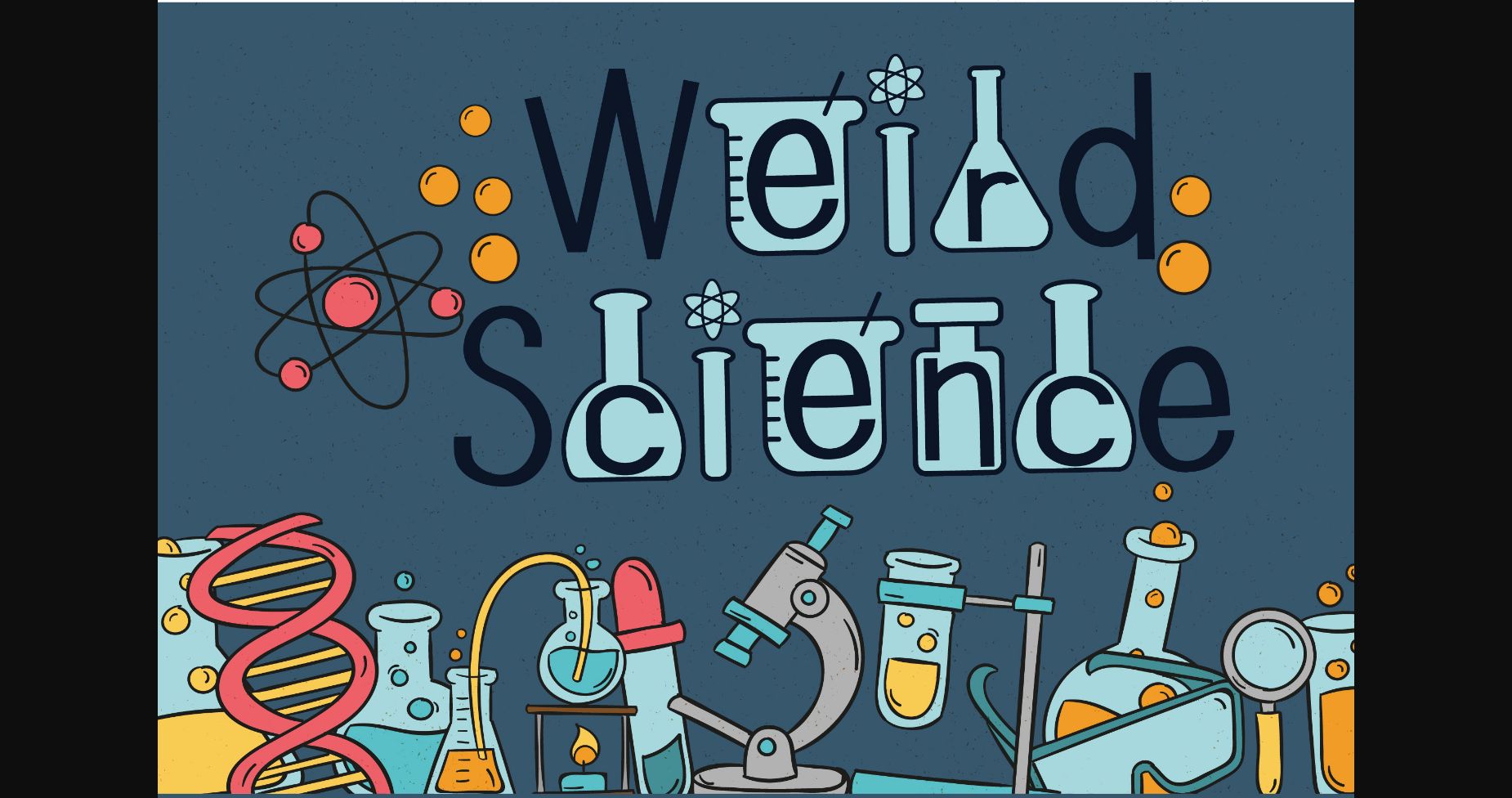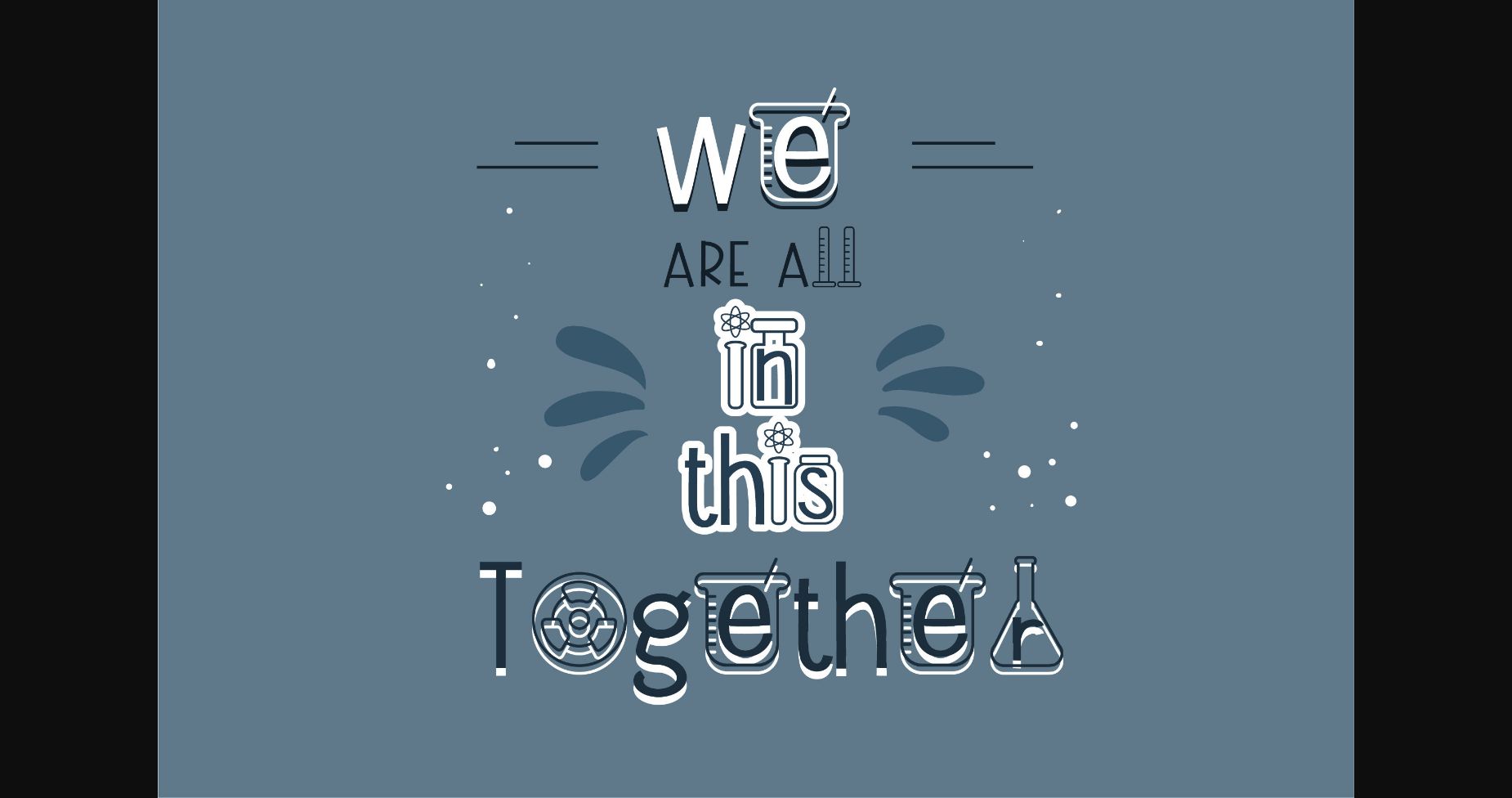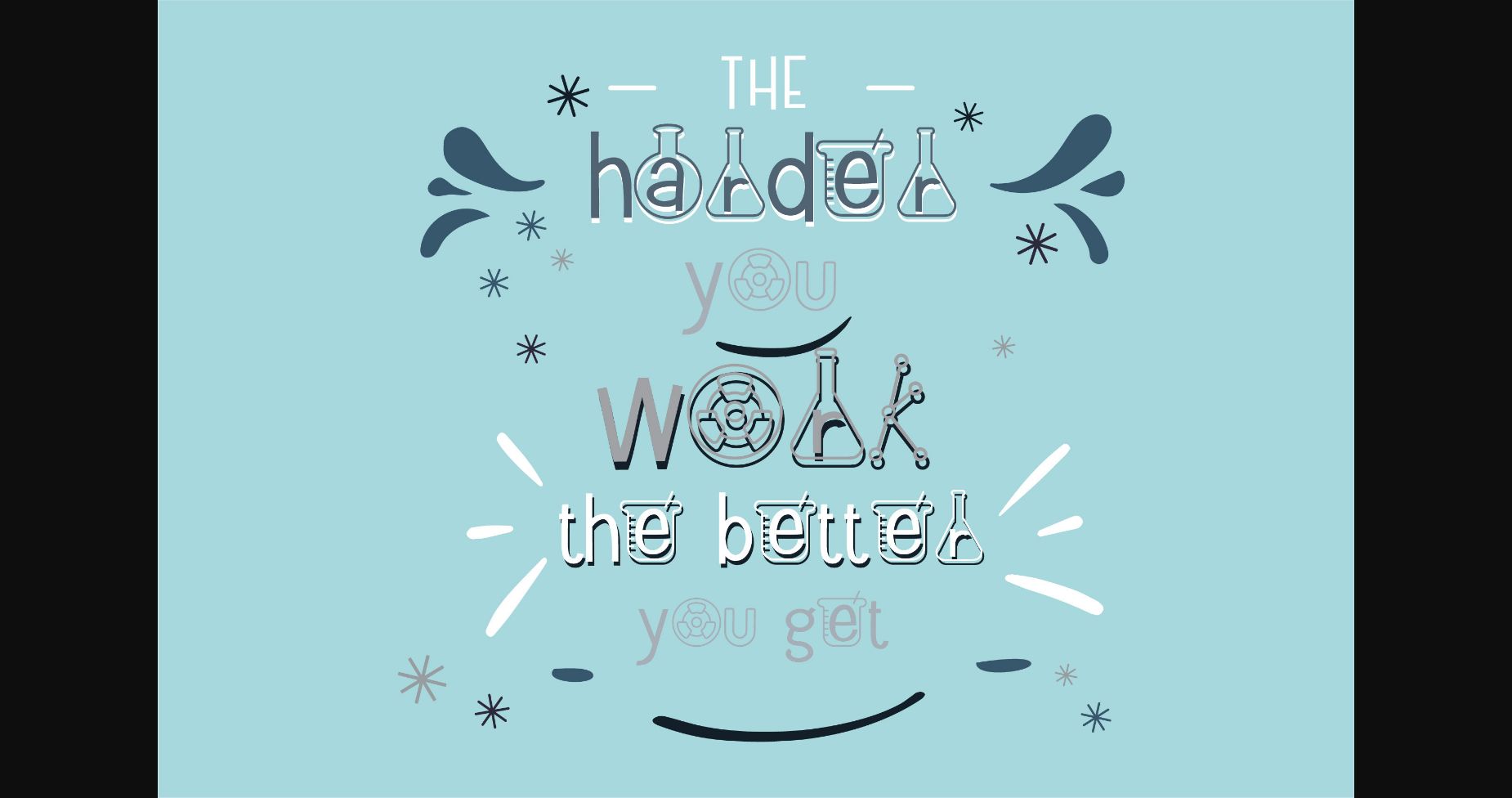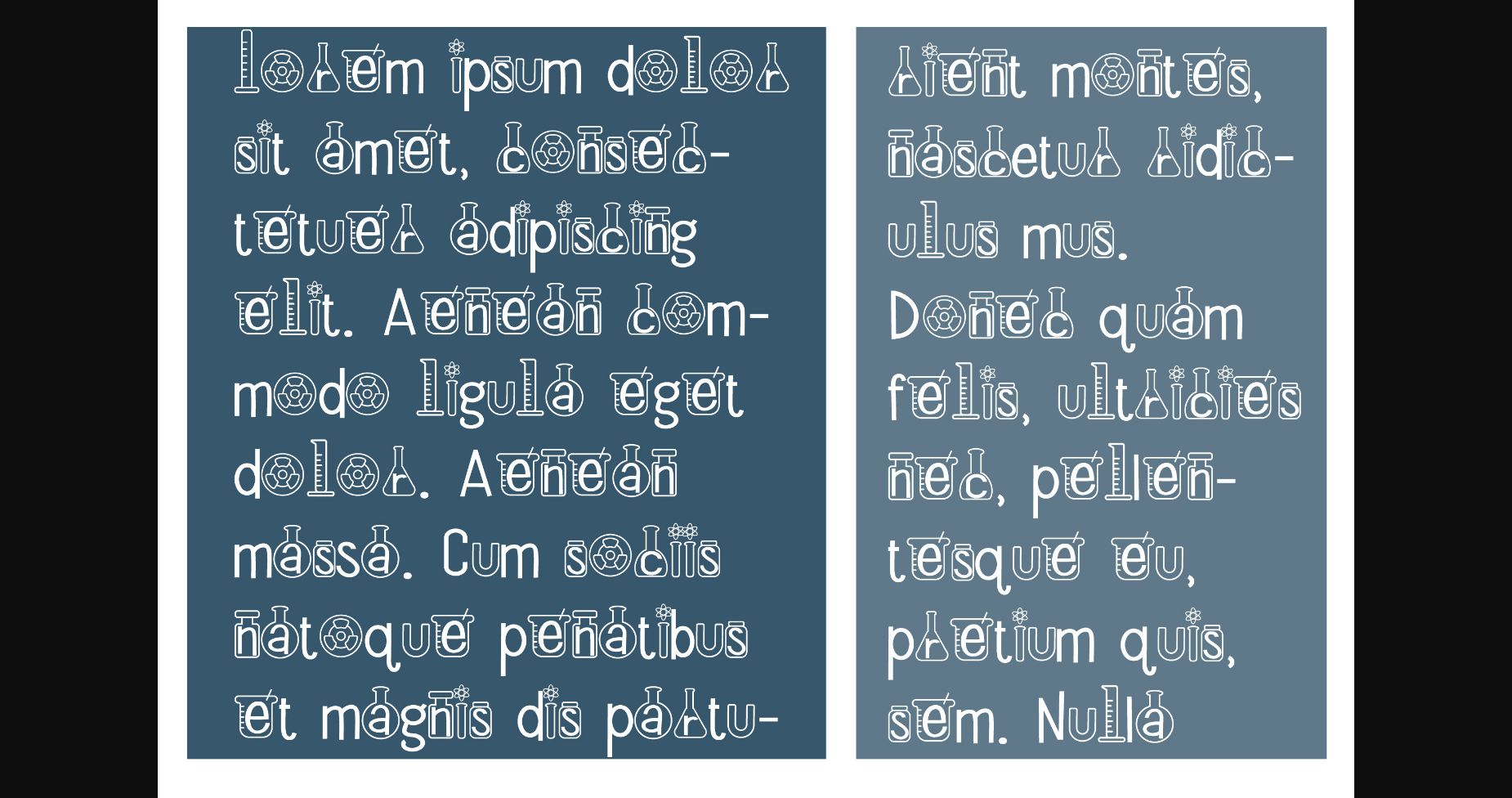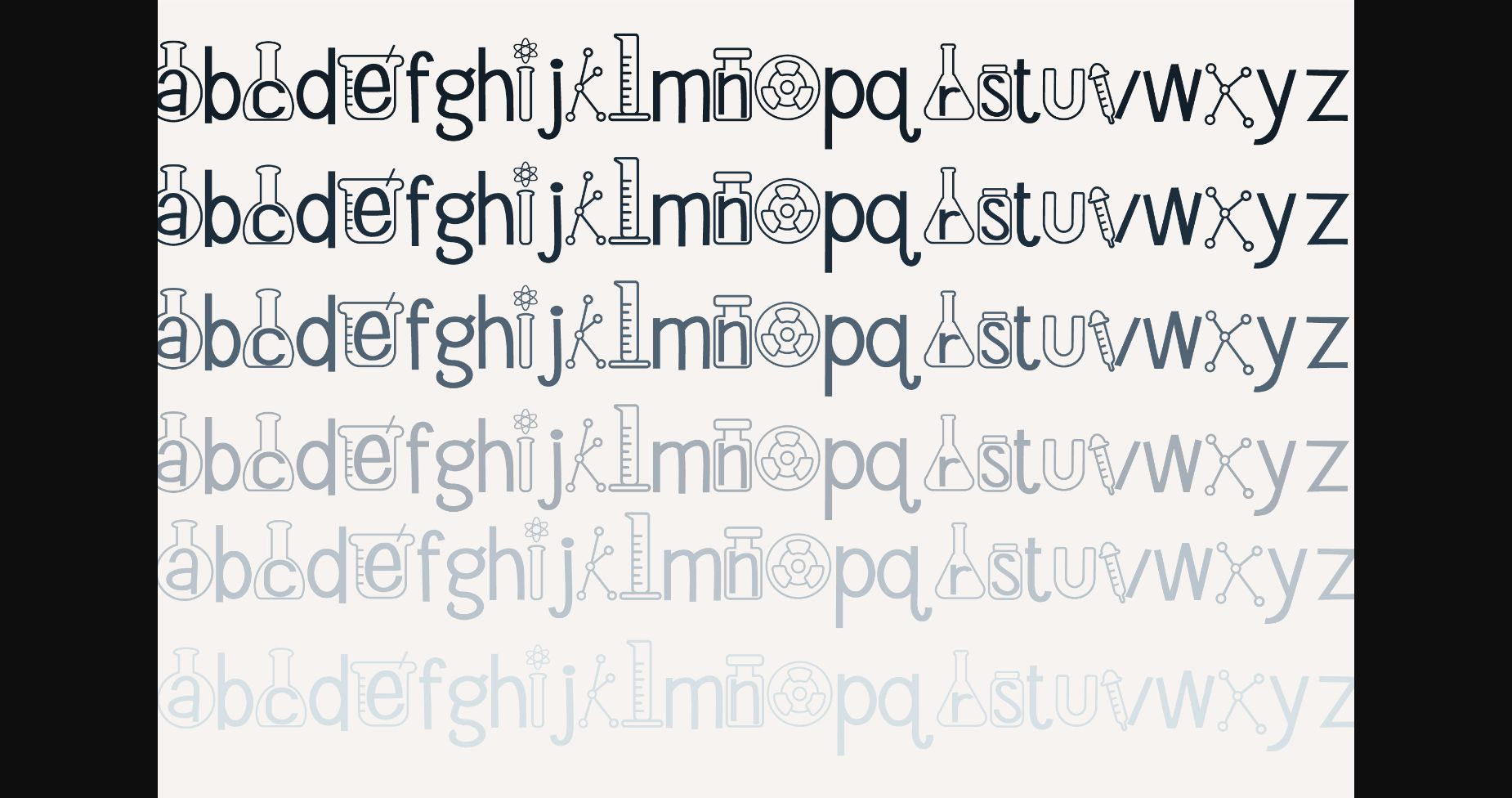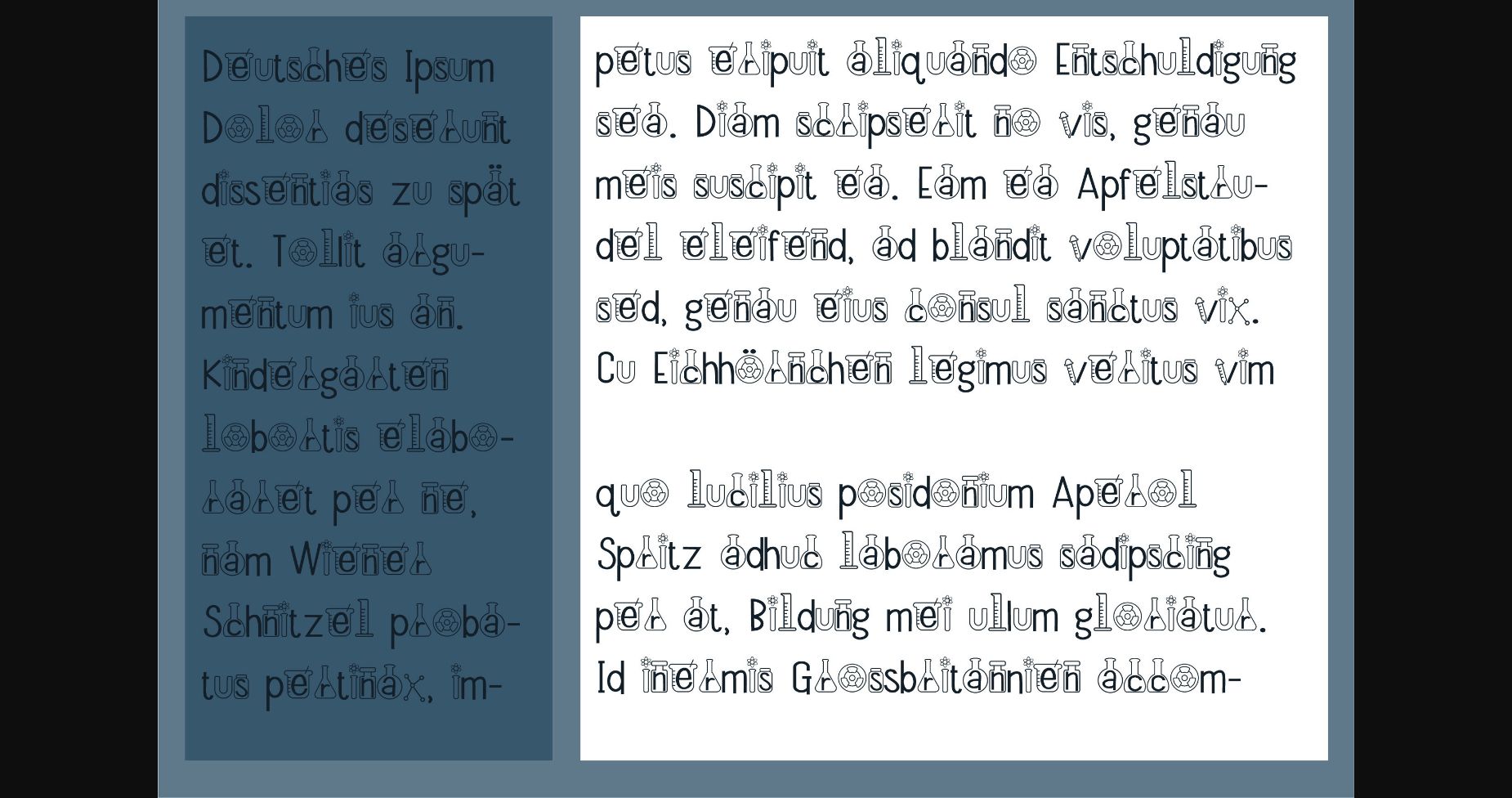
HomeSans Serif FontsWeird Science Font Sans Serif Fonts Weird Science Font FacebookXPinterestWhatsApp 1 of 9 ... Weird Science Font Poster 2... Weird Science Font Poster 3... Weird Science Font Poster 4... Weird Science Font Poster 5... Weird Science Font Poster 6... Weird Science Font Poster 7... Weird Science Font Poster 8... Weird Science Font Poster 9... About Weird Science Font Weird Science is a hand-crafted sans serif font featuring playful letters and science elements throughout. DOWNLOAD NOW People also explored Wakanda Font Northblue Font Alaymen Font Heidate Font Beautiful December Font Calligraphy Font Asian Font Avocado Lover Font Sweet Honey Font 494 0 TagsWeird Science Font Previous articleKross Neue Grotesk FontNext articleAndromeda Mirror Font LEAVE A REPLY Cancel reply Comment: Please enter your comment! Name:* Please enter your name here Email:* You have entered an incorrect email address! Please enter your email address here Website: Save my name, email, and website in this browser for the next time I comment. Personal Use Free Veronica Personal Use Free Read more about this font Namskow Personal Use Free Read more about this font Midnight Show Personal Use Free Read more about this font Nouradilla Script Free Version Personal Use Free Read more about this font BLOG Top 10 Handwritten Fonts That Elevate Your Designs Top 10 Handwritten Fonts That Will Elevate Your Designs Handwritten fonts bring a warm, personal touch to every creative project. Whether you're designing logos, invitations,... Top 7 Google Fonts Alternatives for Faster and Privacy-Friendly Web Design (2025) 5 Fonts That Will Dominate Design Trends in 2026 Transform Your Website: Elevate Your Typography with 7 Best Web Font Generators